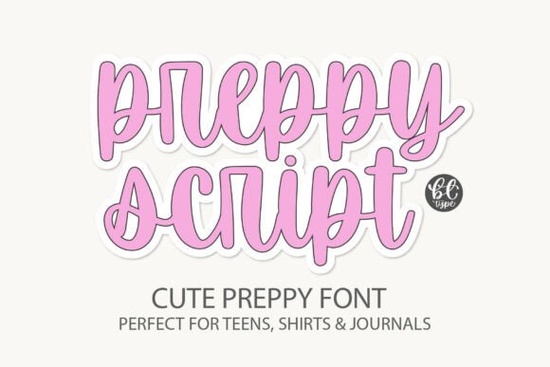
If you spend a lot of time making custom shirts, mugs, or classroom materials, you already know how much a well-drawn typeface can change a design from basic to memorable. Preppyscript Font offers a playful brush-style script that keeps clean lines and smooth curves without the messy edges that often complicate cut files. It reads clearly on both light and dark backgrounds, which makes it a reliable choice for everyday crafting and small-batch print projects.
How does this typeface handle Cricut and Silhouette projects?
Cutting machines rely on clear vector paths, and thick script styles sometimes merge together when scaled down. This particular script was built with generous spacing and consistent stroke weight, so your vinyl cutter or printer follows each letter accurately. You can size it down for sticker packs or scale it up for tote bags without worrying about overlapping loops getting lost in the cut. If you usually pair a decorative script with a clean sans serif for contrast, this brush style already carries enough personality to stand alone. Crafters who need quick, ready-to-use files often keep it on hand for last-minute gifts. For more script options that follow similar rules, you might also explore Preppyscript when searching for your next download.
Which everyday items work best with preppy lettering?
Teachers and stationery designers use this style heavily because it feels approachable and organized. It prints cleanly on teacher appreciation gifts, weekly planners, and classroom banners. If you run a print-on-demand shop, try applying it to lifestyle products like water bottles, ceramic mugs, or tote bags. The rounded terminals give it a soft, modern look that pairs well with minimalist layouts. You can mix uppercase headings with lowercase body text to create balanced compositions without needing extra decorative elements. Many creators also enjoy layering it with subtle pastel backgrounds or geometric shapes. When browsing for complementary styles, Handmade Cupcakes offers a similarly friendly tone for food packaging or bakery branding.
What tools and file formats will you actually use?
How do you keep legible script on small products?
The biggest mistake crafters make is scaling decorative scripts too far down on tags, jewelry cards, or mini stickers. To maintain readability, keep your minimum size above half an inch for physical prints and avoid placing it over busy textures. Increase the tracking slightly in your design software if you plan to use it at smaller scales, which prevents the tail ends of letters from touching. Always test a proof on your actual material before running a full batch, especially with dark ink on light fabric. When you need a slightly more formal script for event stationery, Spooky Bachelorette shows how typography can balance playfulness and structure.
Where can you find reliable typography references?
- Adjust tracking slightly when sizing down to prevent overlapping loops.
- Pair with a simple sans serif for product descriptions or back labels to keep the layout balanced.